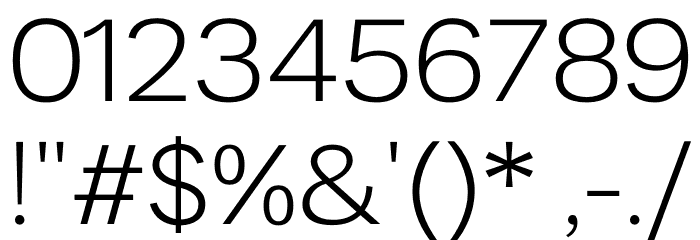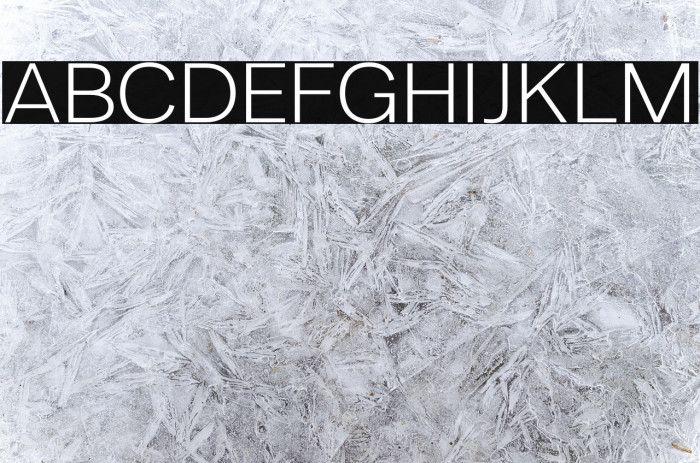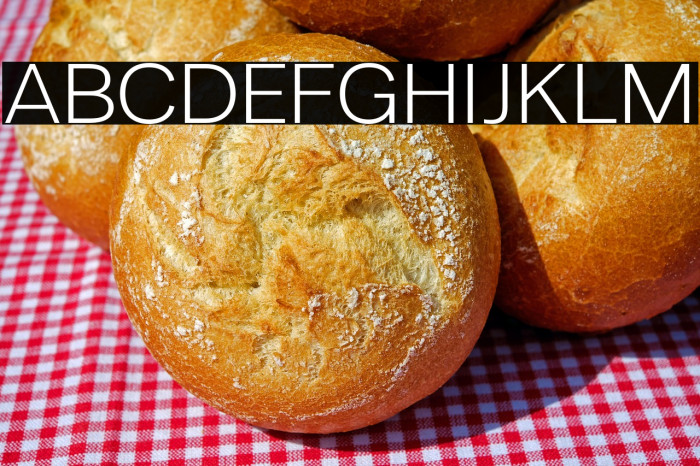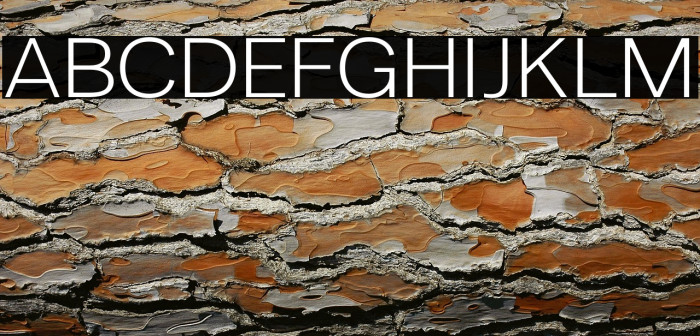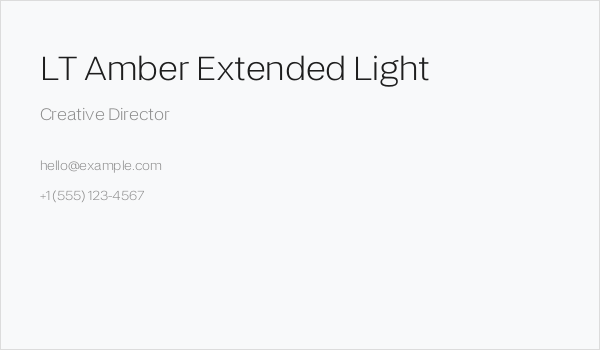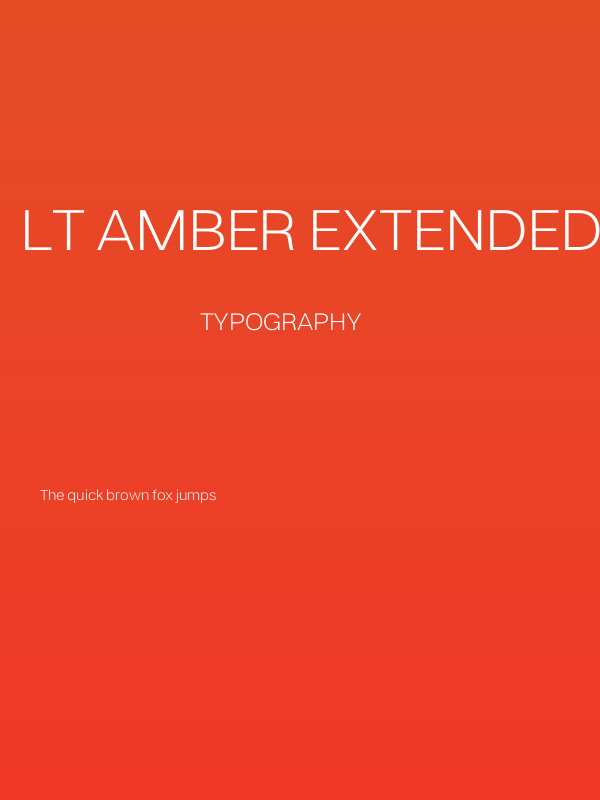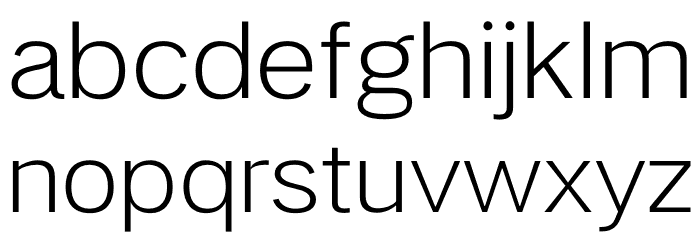
LT Amber Extended Light Font
LT Amber Extended Light Description
This font features a clean and modern sans-serif design with an extended width, giving it a spacious and airy appearance. The characters are crafted with a uniform stroke weight, contributing to its light and elegant feel. The uppercase and lowercase letters are well-balanced, with a consistent height and width that enhances readability. The numerals are straightforward and align perfectly with the overall style, making them suitable for both text and numerical data. Special characters are included, maintaining the font's sleek and minimalist aesthetic.
| Proposed Projects | Ideal for branding, editorial design, web design, and corporate materials where a clean and professional look is desired. |